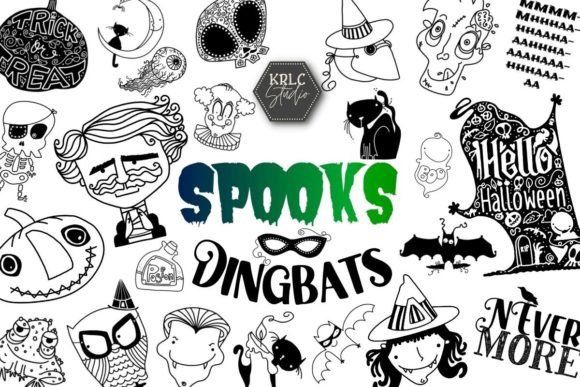
Welcome to the spooky realm of Spooks Font, where whimsy and eeriness entwine to create captivating designs that send shivers down the spine. This enchanting hand-drawn dingbats font, brought to life by the creative minds of KRLC Studio, is a treasure trove of ghoulish delights, ready to transform your Halloween projects into spine-tingling masterpieces.
Step into the realm of Spooks Font, where the ordinary becomes extraordinary. With its playfully sinister collection of creepy cats, wicked witches, banshees, bats, and all things that go bump in the night, this font is the perfect companion for your Halloween-inspired projects. Imagine invitations that dance with mystery, posters that conjure an atmosphere of enchantment, or BINGO cards that bring a touch of spooky fun to your gatherings.
Unleash your creativity with Spooks Font and let your imagination run wild. Create scrapbook pages that capture the esencia of the haunted night, worksheets that spark the curiosity of young minds, and merch designs that exude a hauntingly stylish vibe. The possibilities are endless with this font that casts a spell on all who behold it.
Embrace the magic of Spooks Font and transport yourself to a realm of enchanting darkness. Let your fingers dance across the keyboard, guided by the mystical energy of this font, as you craft designs that are both captivating and chilling. Whether you're a seasoned design expert or a novice just starting out, Spooks Font is your key to unlocking a world of spooky creativity.